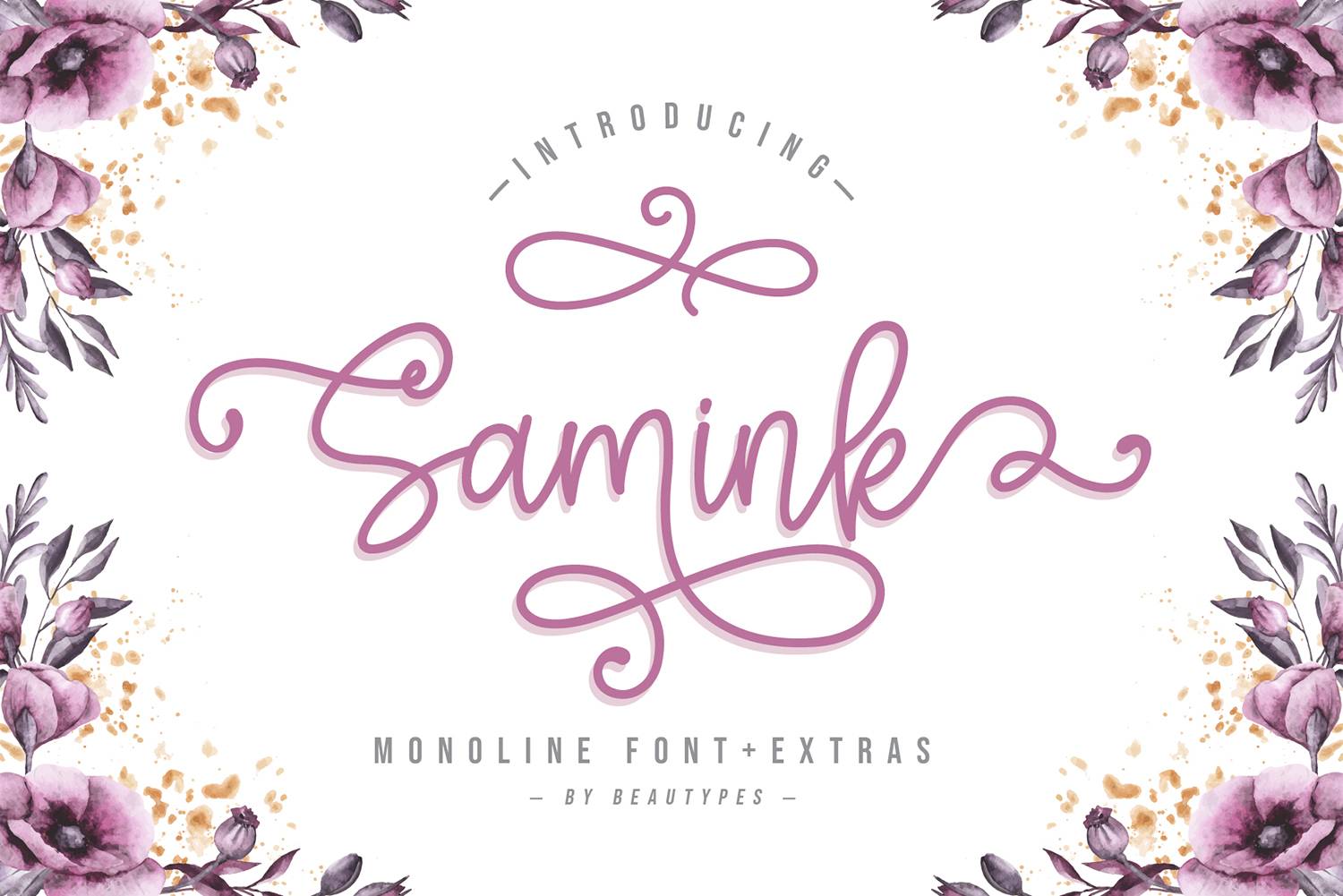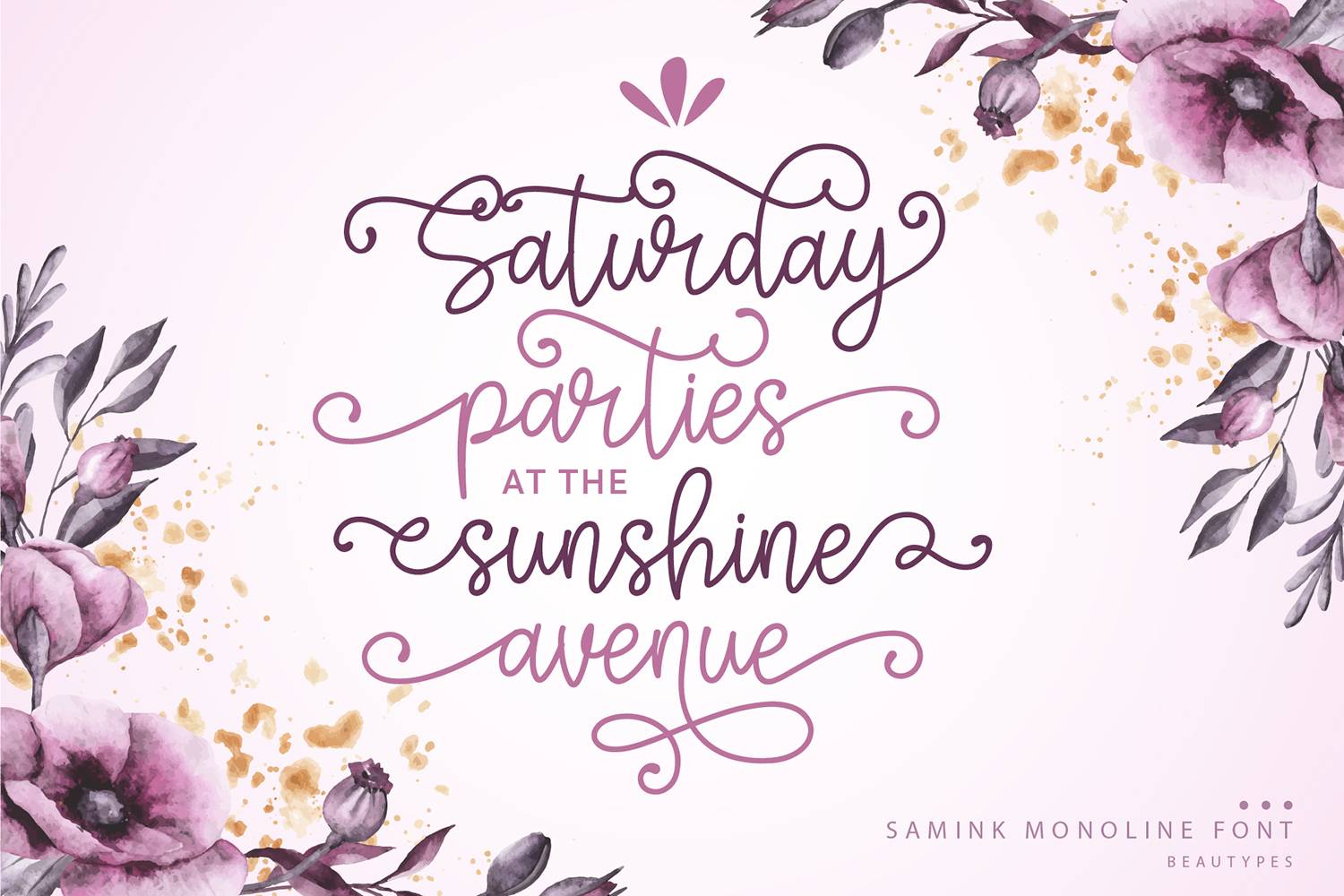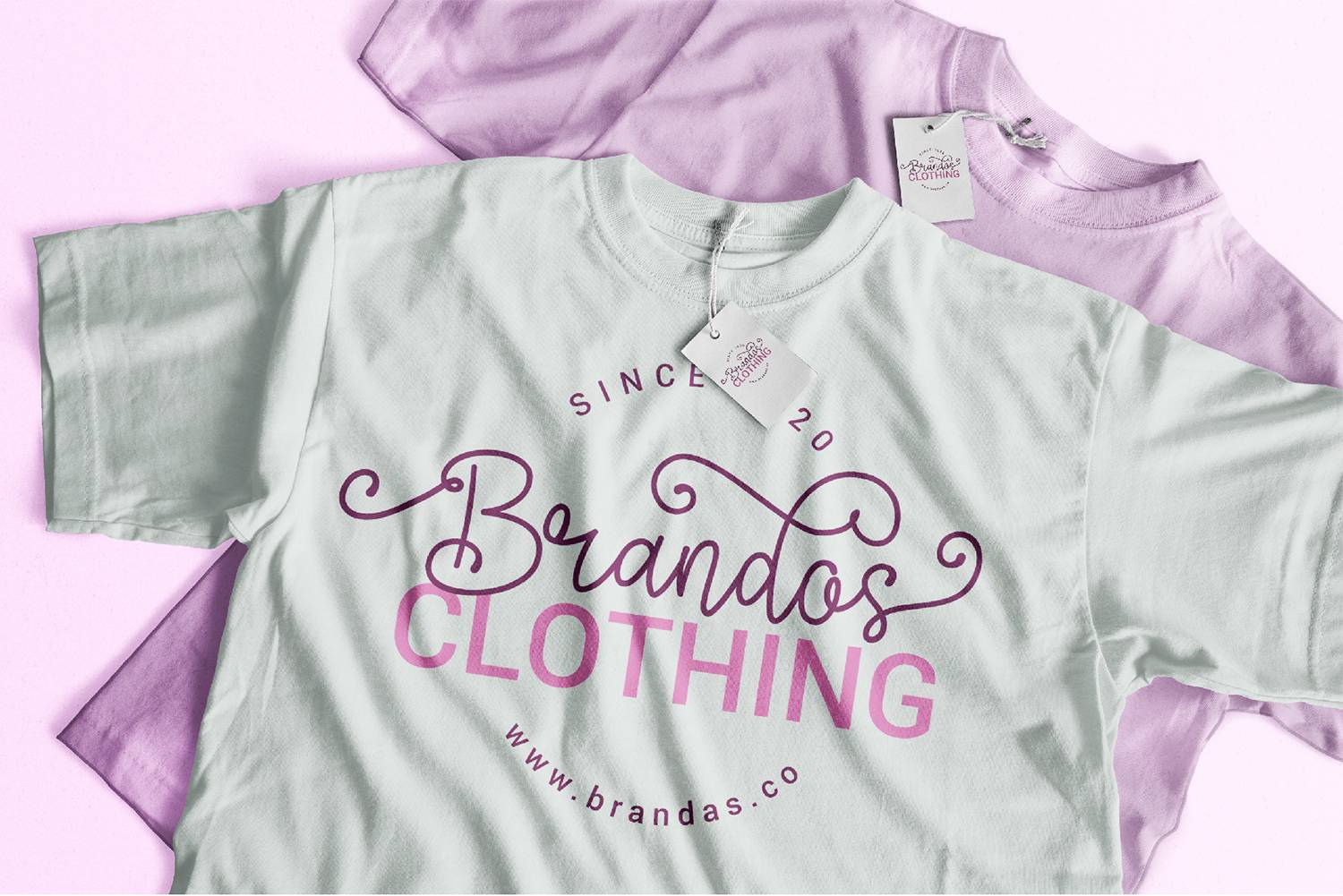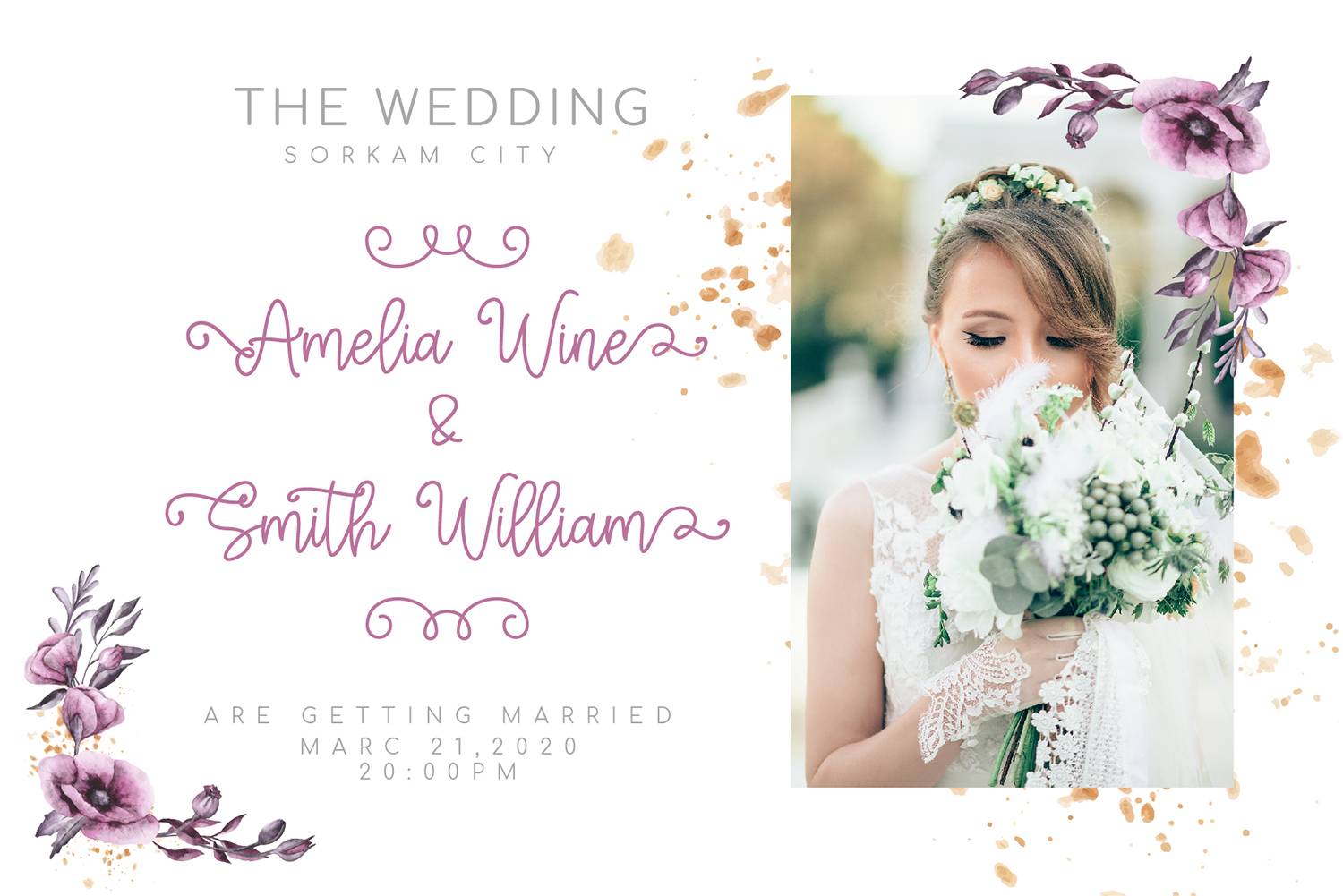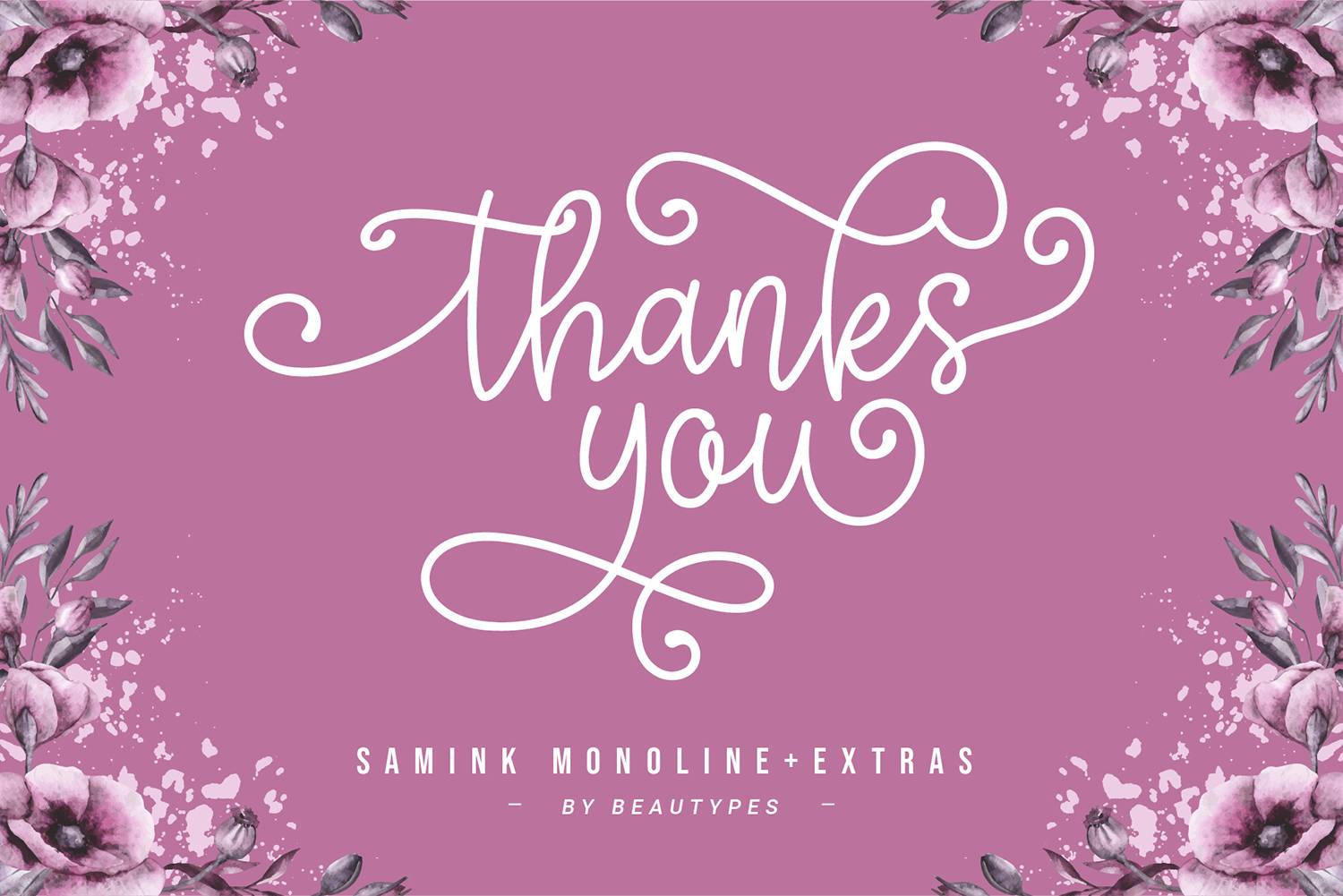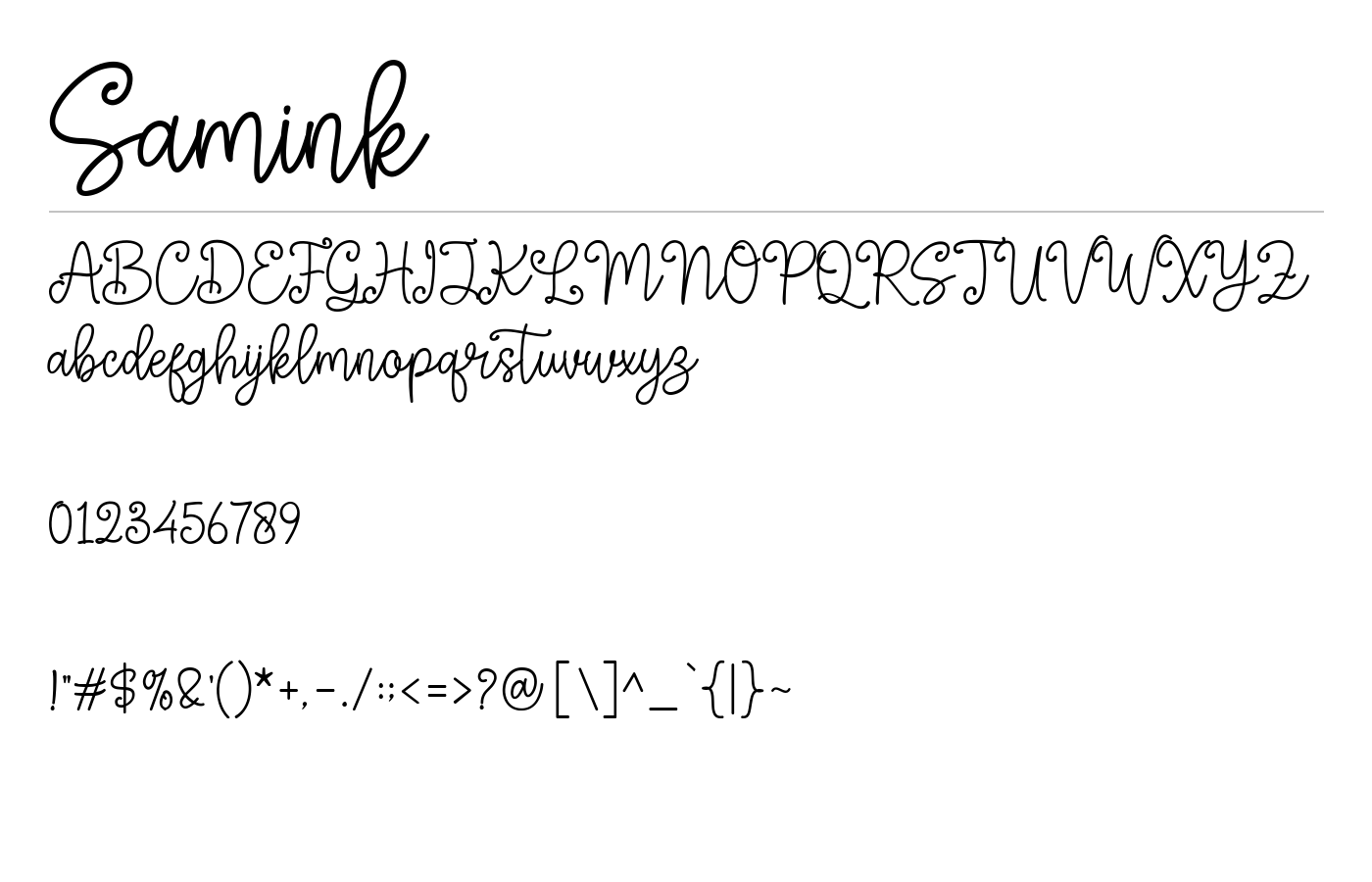
Samink is a playful and elegant script font characterized by its delicate, flowing strokes and distinctive curly terminals that add a whimsical charm. With its light weight and smooth, continuous lines, it works beautifully for creative branding, invitations, and decorative headlines, conveying a friendly and artistic personality. This font is ideal for projects that seek a stylish yet approachable feel, perfect for personal and boutique design styles.
Samink Font
About Samink Font
| Font family | Samink Font |
| Designer | Rizaldi Wandani |